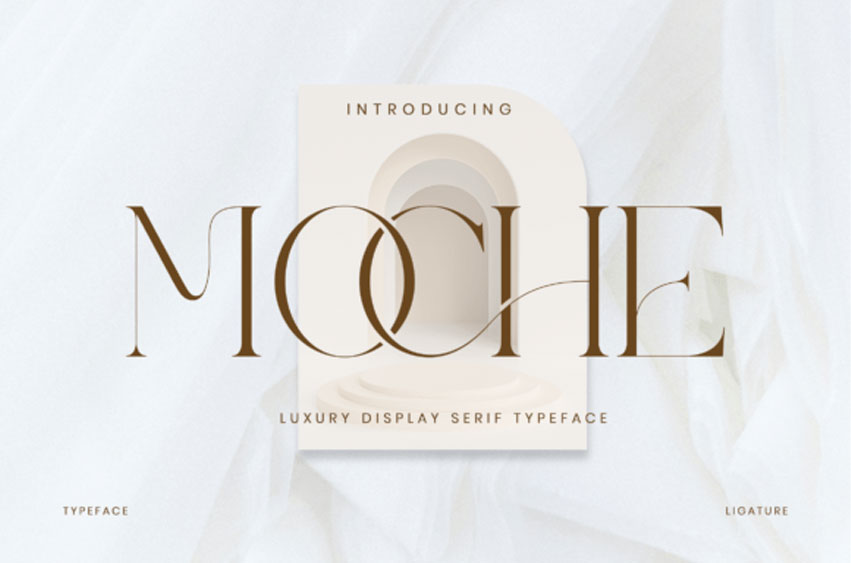
Moche Font is a stylish ligature serif typeface inspired by the elegance of minimalist logos, crafted to bring a modern and sophisticated touch to your designs. Its sleek, contemporary letterforms make it perfect for creating templates, brochures, videos, advertising materials, branding, logos, and much more.